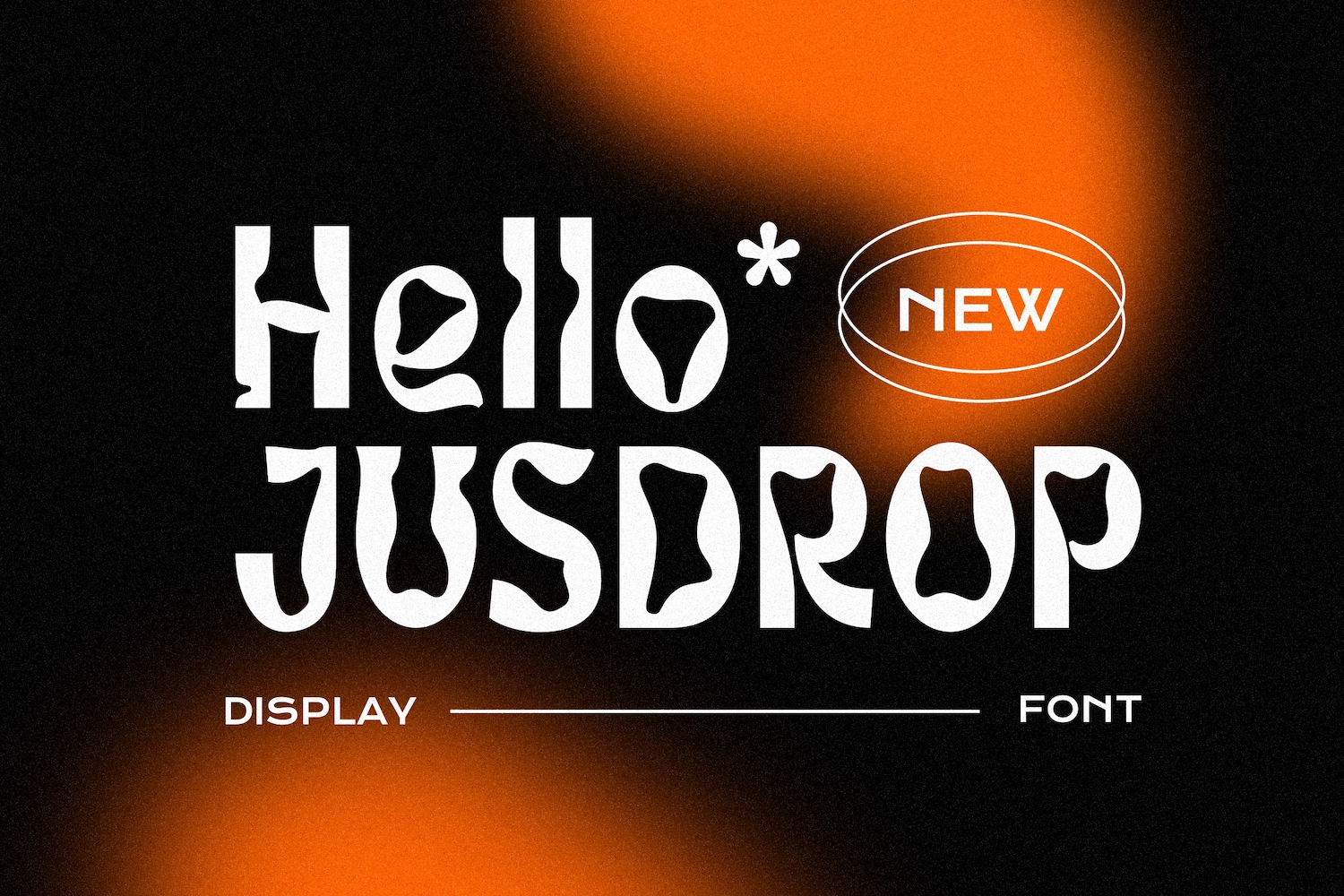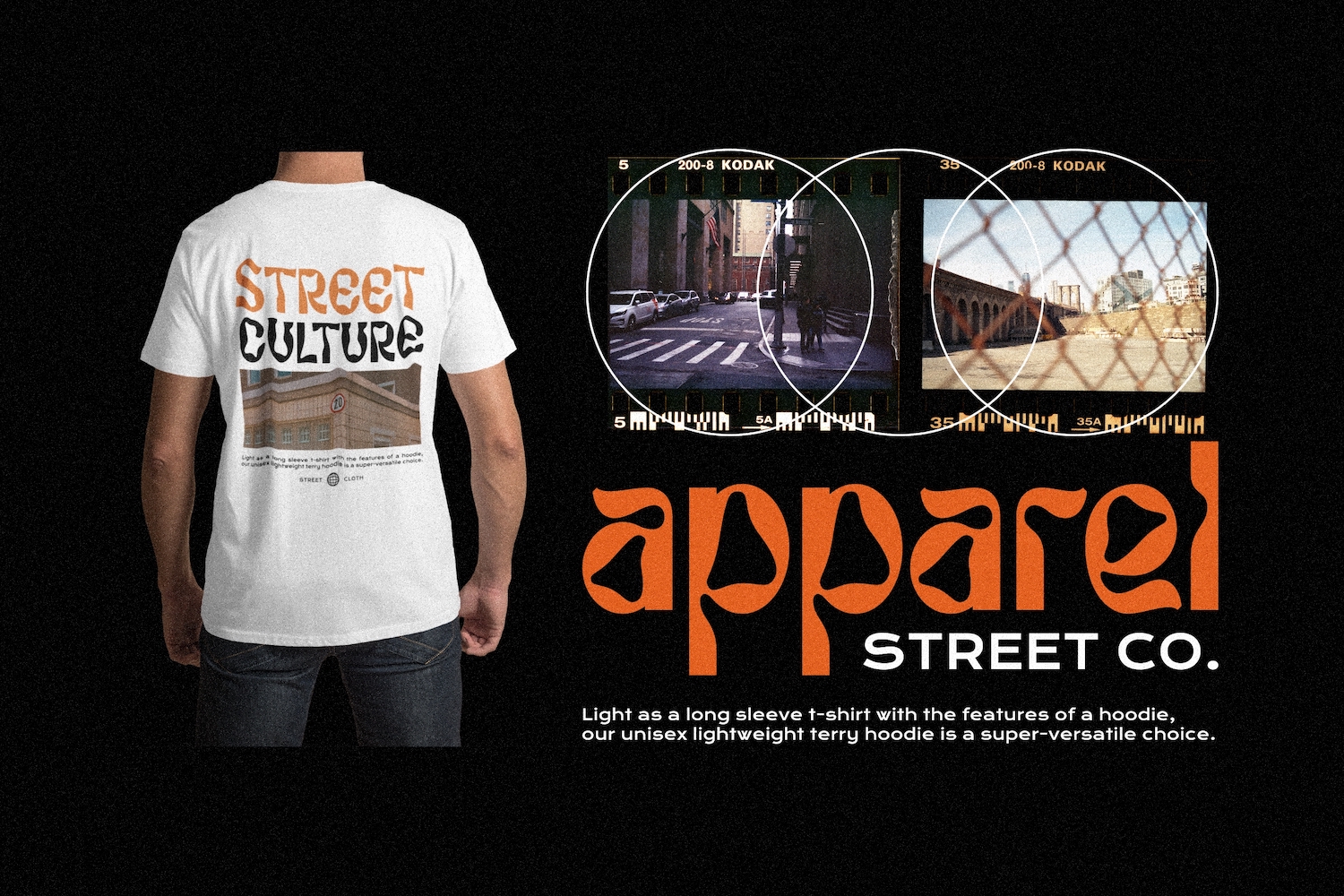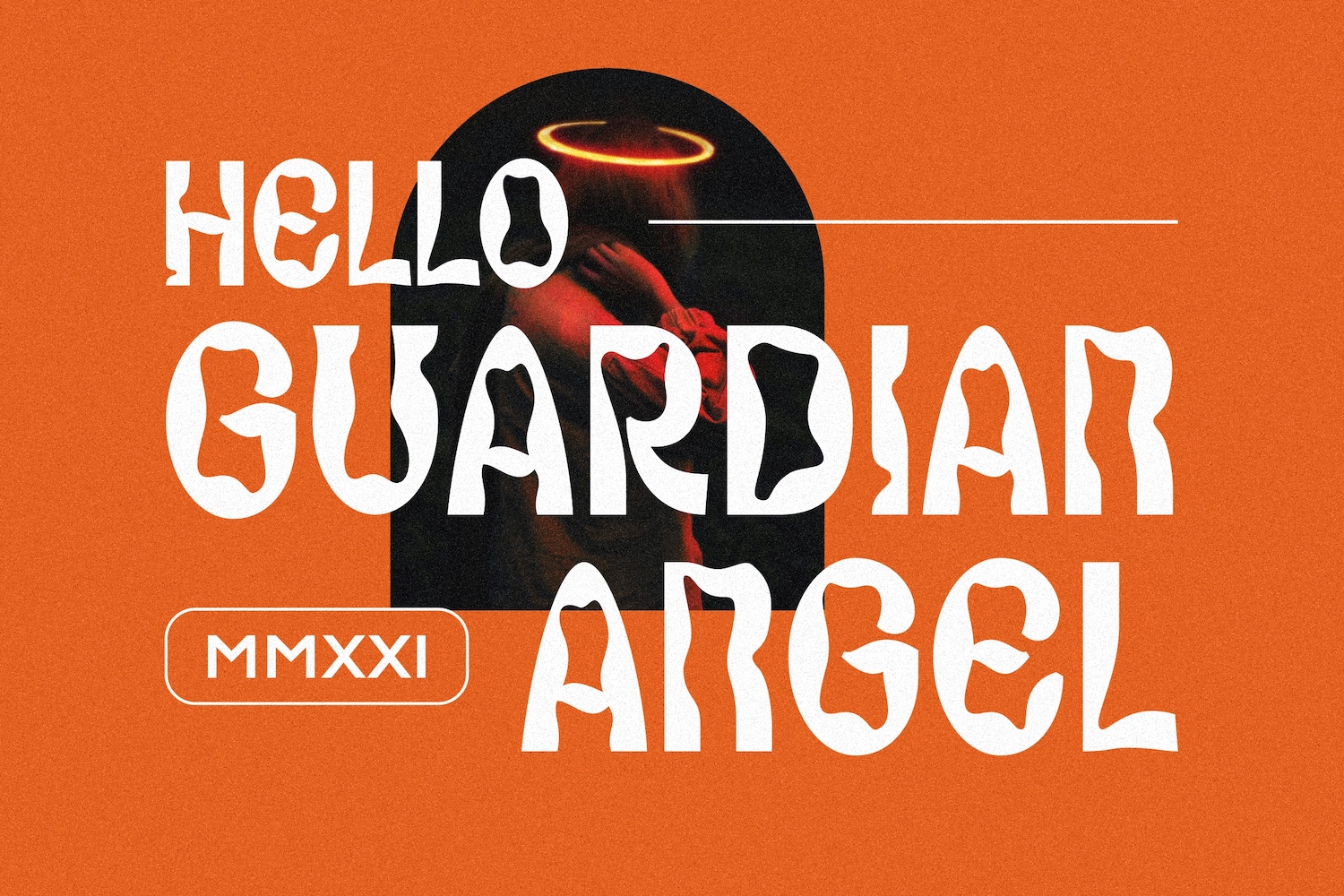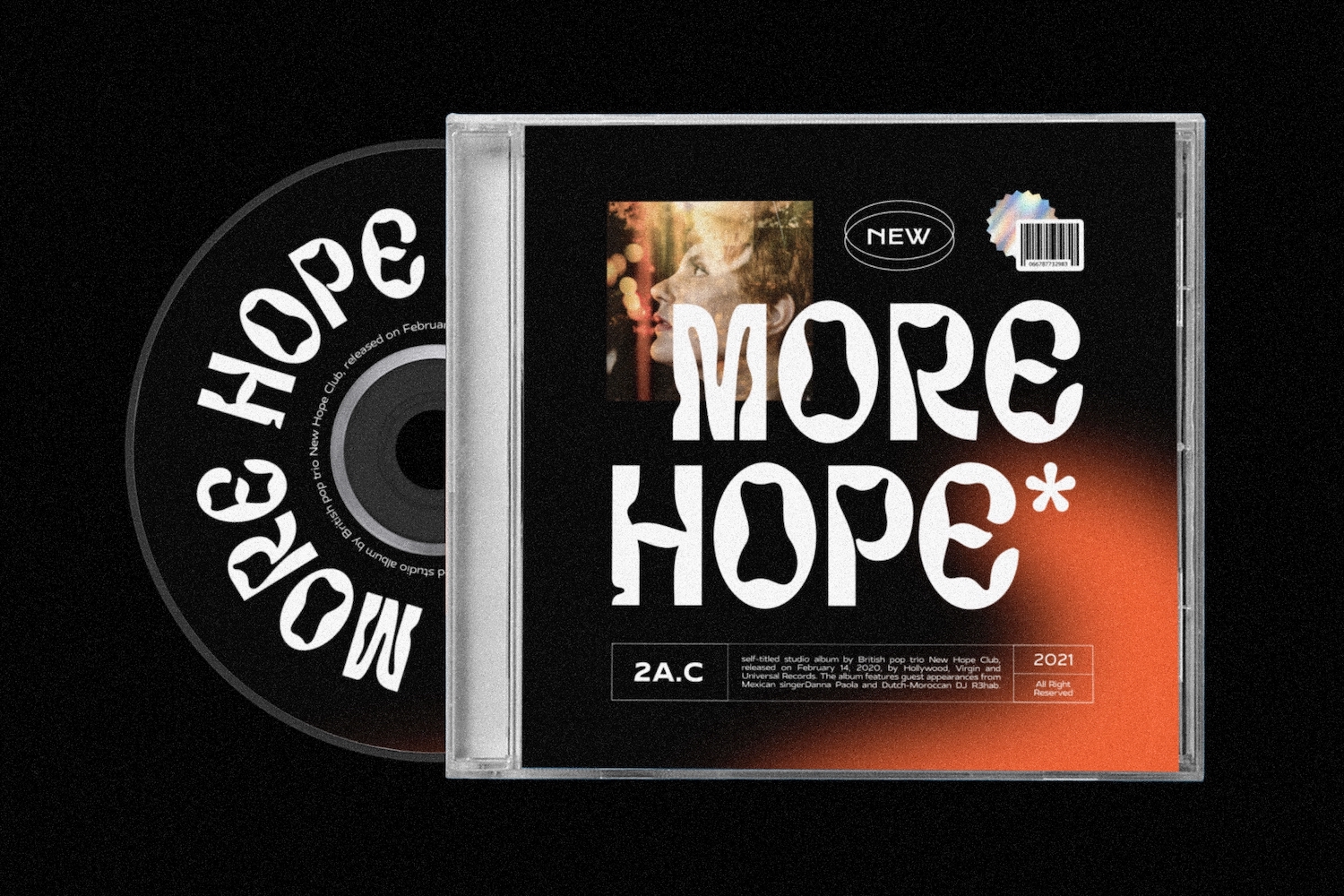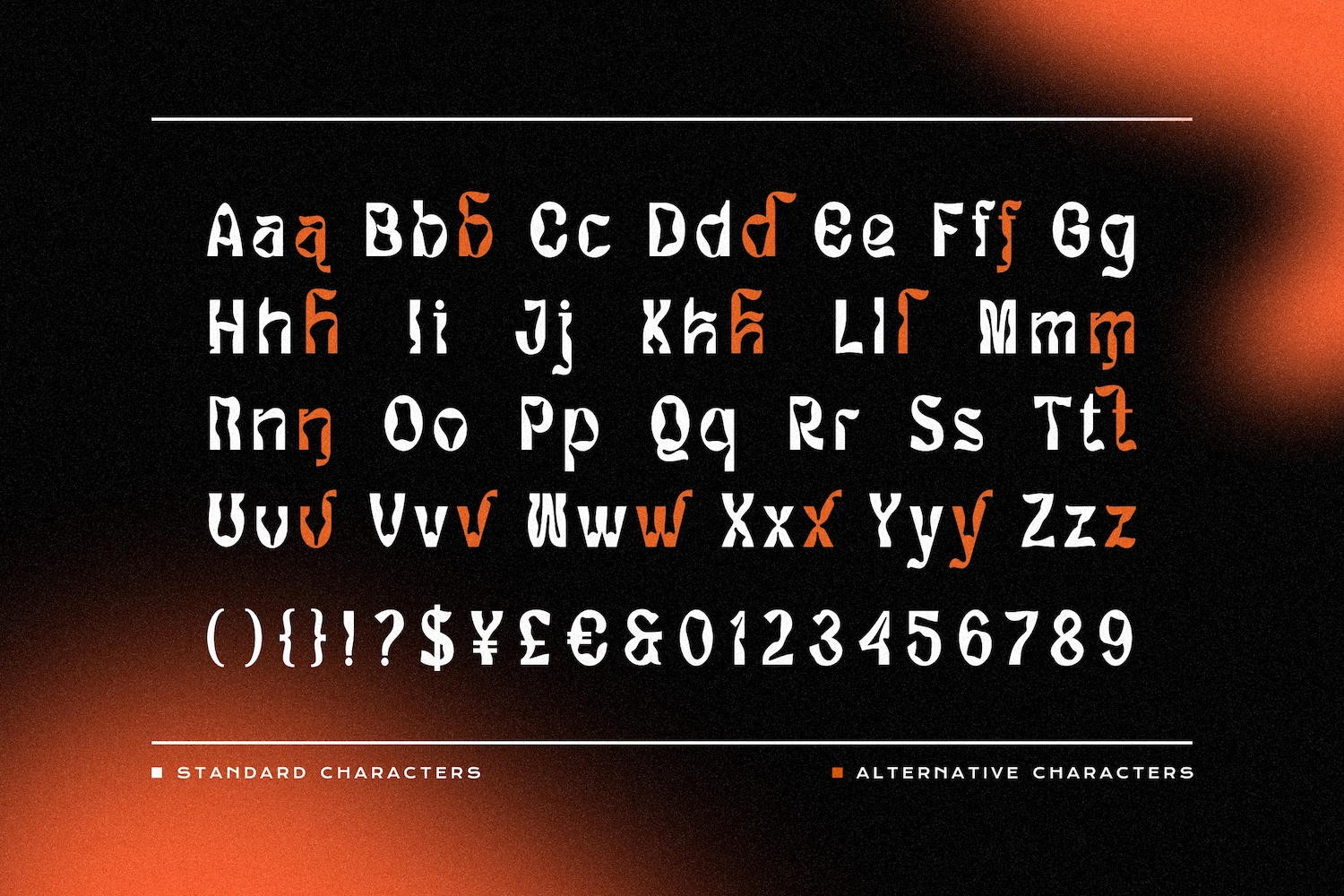
Jusdrop is a bold experimental display font with a quirky and fluid style that pushes the boundaries of legibility in favor of expressive visual identity. Each letterform is designed with irregular curves and organic cuts, giving a hand-crafted rebellious edge. Perfect for modern streetwear branding, album art, or urban design projects that demand attention.
With both standard and alternate characters, Jusdrop brings playful contrast and stylistic flair to your compositions. It’s not a serif or sans-serif; rather, it lives within the realm of modern display fonts with artistic flair, built for impact and memorability in edgy, culture-driven contexts.